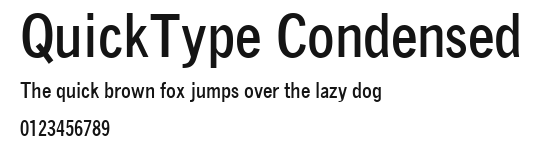
QuickType Condensed Preview
• Font Name: QuickType Condensed
• Full Font Name: QuickType Condensed Bold
About QuickType Condensed.ttf
QuickType Condensed.ttf is a modern, elegant sans-serif font designed for ultimate readability and visual harmony. Perfect for branding, headlines, web design, and print materials.